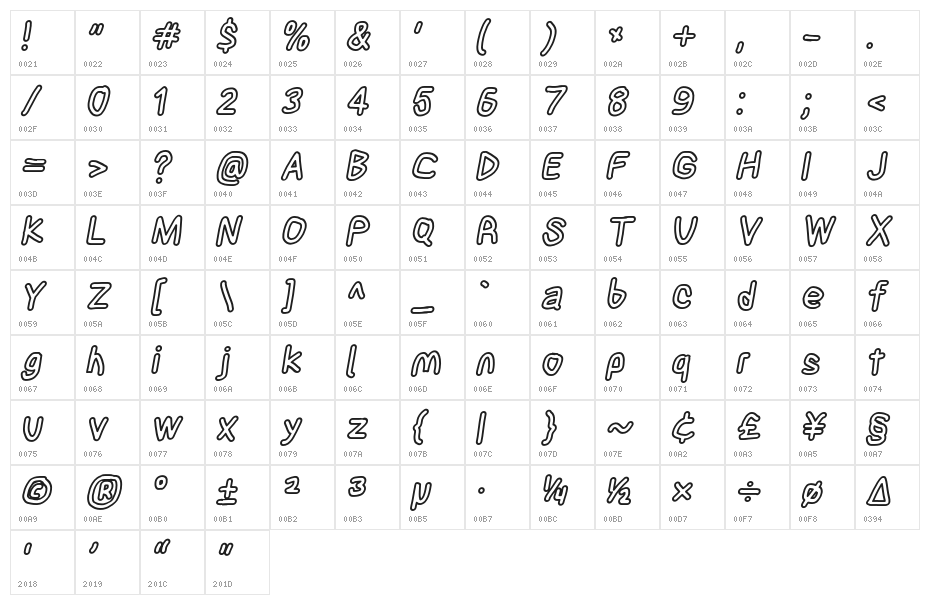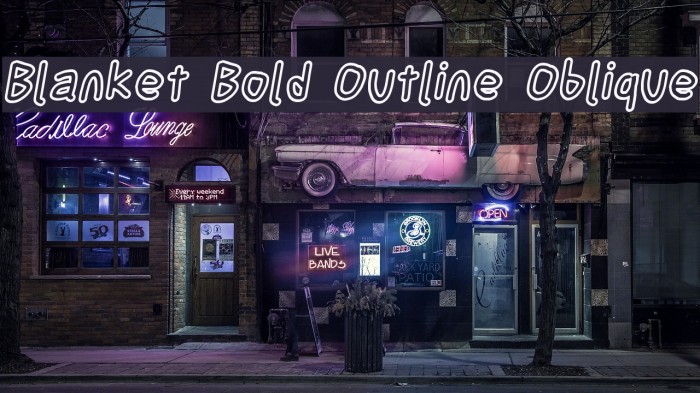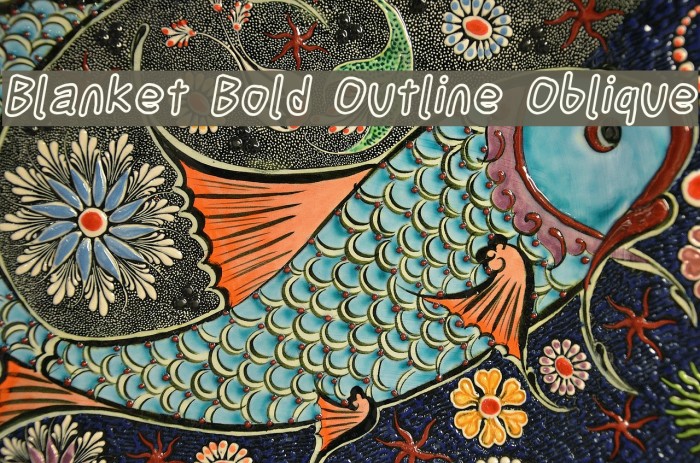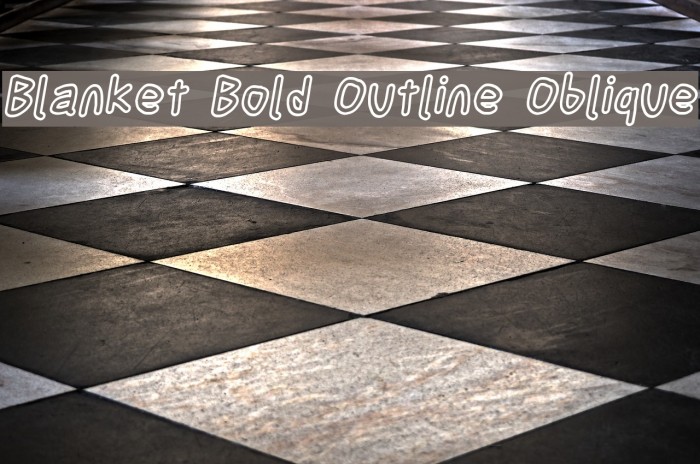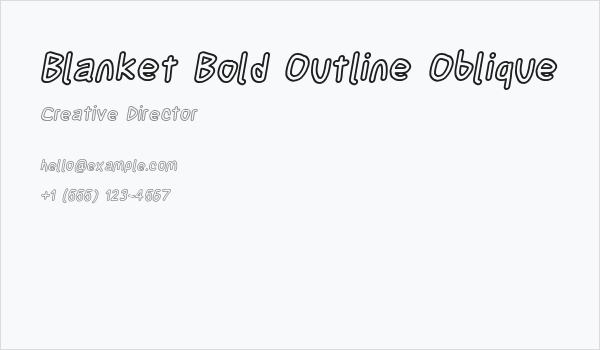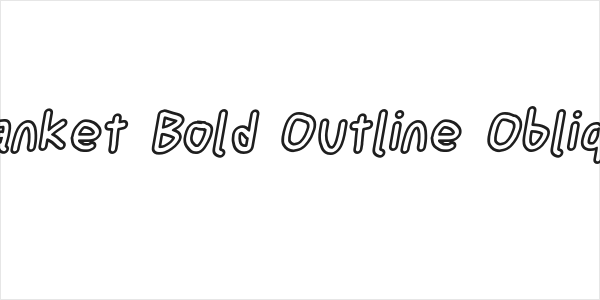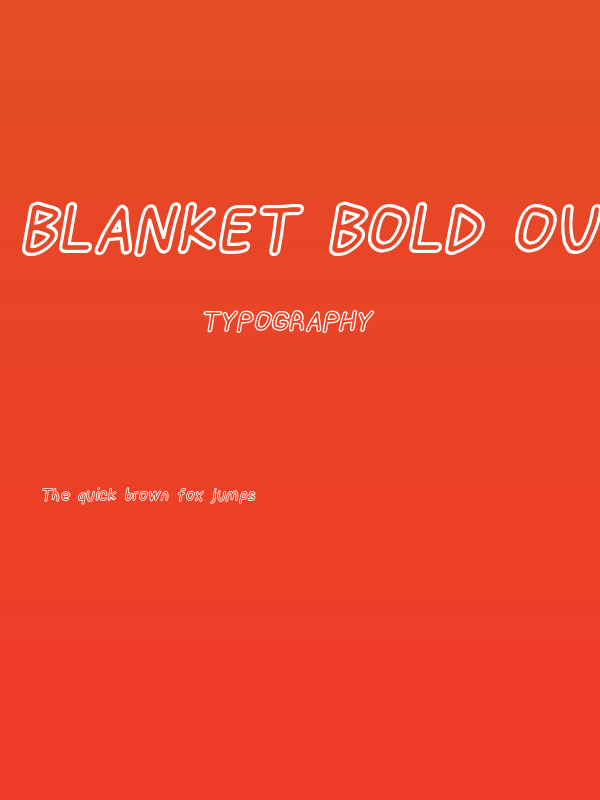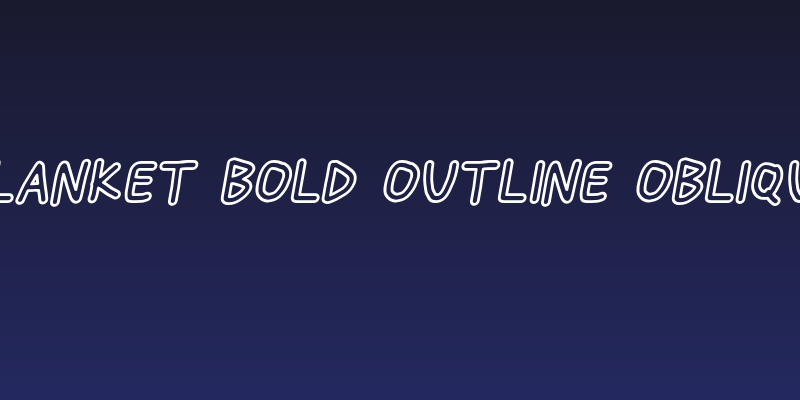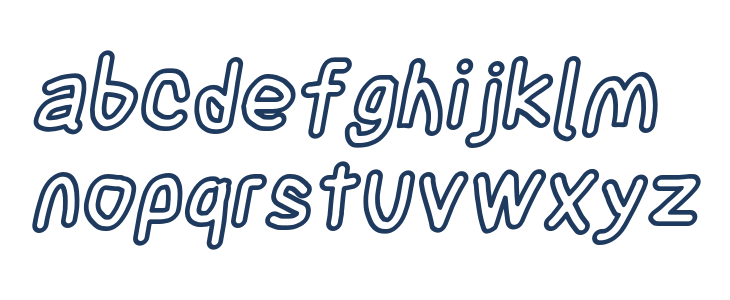
Blanket Bold Outline Oblique Font
Blanket Bold Outline Oblique Description
This font features a bold, outlined style with an oblique slant, giving it a dynamic and playful appearance. The characters are well-defined with a consistent outline that enhances readability while maintaining a unique aesthetic. The uppercase and lowercase letters are distinct, with rounded edges that add a friendly and approachable feel. The numerals and special characters are designed to match the overall style, ensuring a cohesive look across all text elements. This font is ideal for projects that require a bold statement and a touch of creativity.